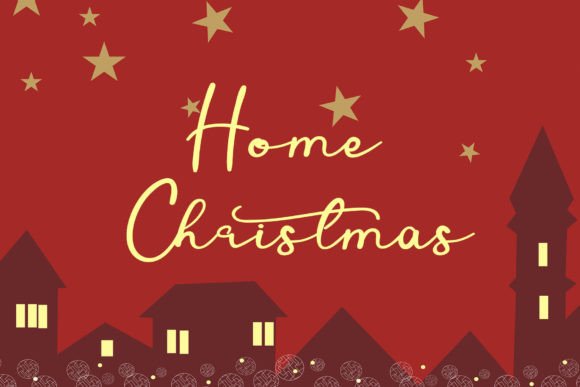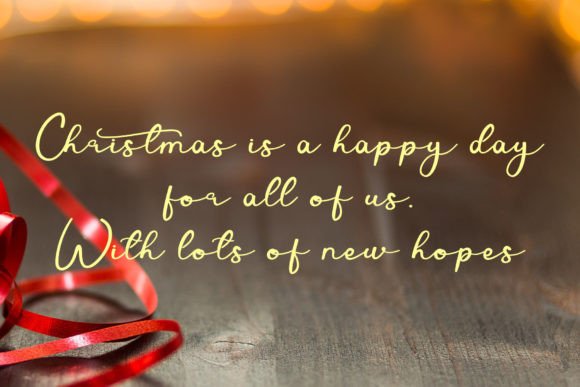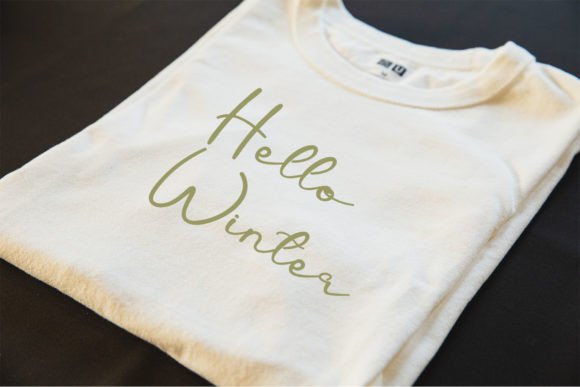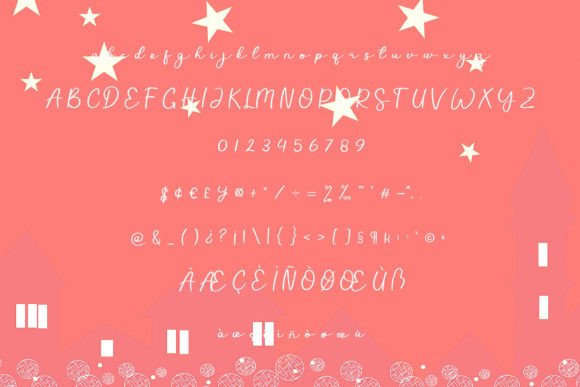
As I sat at my desk, sipping hot cocoa and flipping through design inspiration boards, I stumbled upon a font that immediately caught my eye. It was a cheerful, handwritten font that screamed “festive” and “fun” – the perfect antidote to a cold winter’s day. I couldn’t help but imagine it gracing the pages of a wedding invitation or adorning the cover of a holiday card.
Meet Christmas Font, a sweet and friendly handwritten font designed to add a dash of whimsy to your designs. This fresh and cute font is perfect for anyone looking to inject a fun touch into their work. Whether you’re a seasoned designer or a DIY enthusiast, Christmas Font is a valuable addition to your toolkit.
Key Features of Christmas Font
- Font Style: A festive, cursive font designed to evoke the spirit of Christmas.
- Unique Characteristics: Includes decorative elements, such as ornaments, holly leaves, and snowflakes, to add a touch of holiday magic to your designs.
- Character Set: Includes a comprehensive set of characters, including uppercase and lowercase letters, numbers, and punctuation marks, to facilitate easy use in a variety of contexts.
Christmas Font Review
Overall, I was underwhelmed by the Christmas Font, but there are some redeeming qualities ✨. The font’s playful and festive vibe is perfect for holiday-themed designs, and the bold, cursive script adds a touch of whimsy to any project. The font also includes a range of symbols and icons, including snowflakes, holly leaves, and Christmas trees, which can be used to add extra flair to your designs.
The font’s strengths lie in its ability to evoke a sense of fun and celebration, making it ideal for social media graphics, advertising, and other promotional materials ✨. Additionally, the font is well-suited for use in digital media, such as websites and apps, where a bold and eye-catching display is essential.
However, there are some limitations to consider ⚠️. The font’s lack of versatility means it’s not suitable for more formal or professional projects, and the bold, cursive script can be overwhelming if used in excess. Furthermore, the font’s range of symbols and icons, while fun, can be a bit too kitschy for some tastes.
- Playful and festive vibe
- Bold, cursive script
- Range of symbols and icons
- Suitable for social media graphics, advertising, and promotional materials
- Well-suited for digital media
Overall, the Christmas Font is a solid choice for designers looking to add a bit of holiday cheer to their projects, but it’s not a versatile font that can be used in a wide range of contexts.
Use the Christmas font in combination with other festive elements, such as holly, snowflakes, or reindeer, to create a cohesive design.
Experiment with different font sizes, colors, and styles to add depth and visual interest to your design.
Use the Christmas font to create a sense of nostalgia or whimsy, perfect for holiday cards, invitations, or social media graphics.
Christmas font is commonly used for: